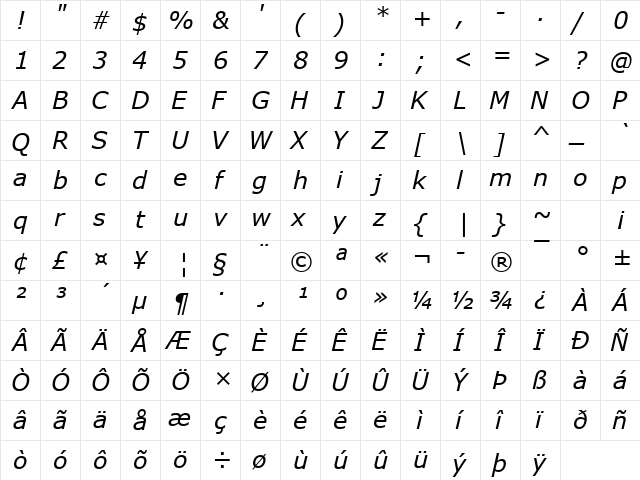
Verdana Italic
Design Context for Verdana Typeface
Verdana offers clean, dependable letterforms without strong stylistic allegiance, making it a practical choice for designers who need flexibility. The dynamic lean of this cut emphasises speed and emphasis in any layout.
Pro Tip: Try Verdana for annotation and caption copy alongside an upright companion — the contrast in angle creates a dynamic but ordered typographic system.